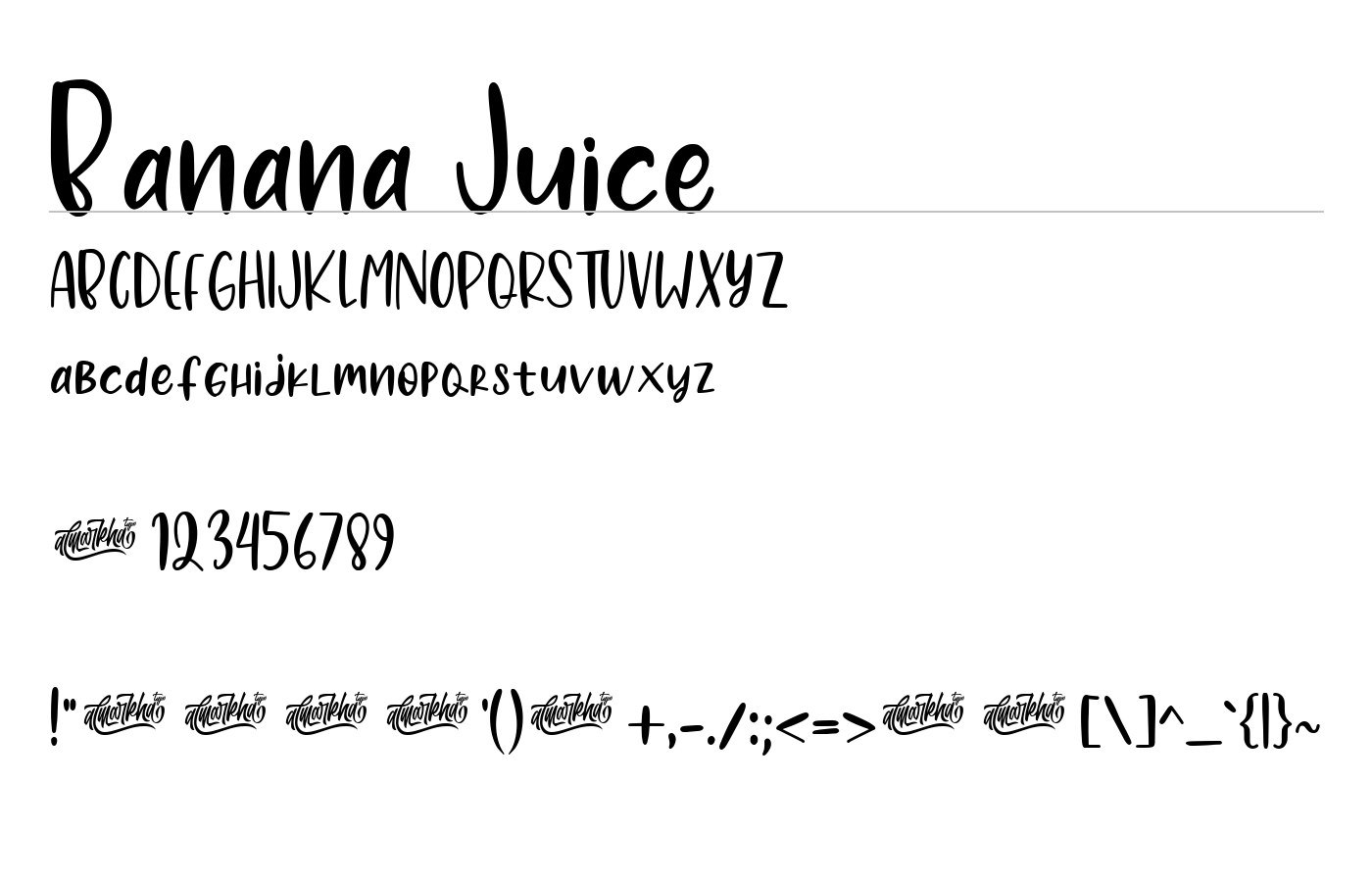
Banana Juice is a playful and casual handwritten font with a lively, informal vibe. Its tall, narrow letterforms feature uneven strokes and a fun, friendly character, making it perfect for creative projects that want to convey energy and approachability. This font works especially well for logos, packaging, and headlines where a unique, personal touch is desired.
Banana Juice Font
About Banana Juice Font
| Font family | Banana Juice Font |
| Designer | Almarkhatype 2020 | Abdul Malik |